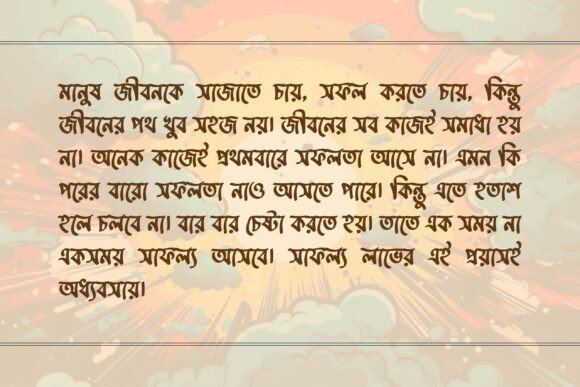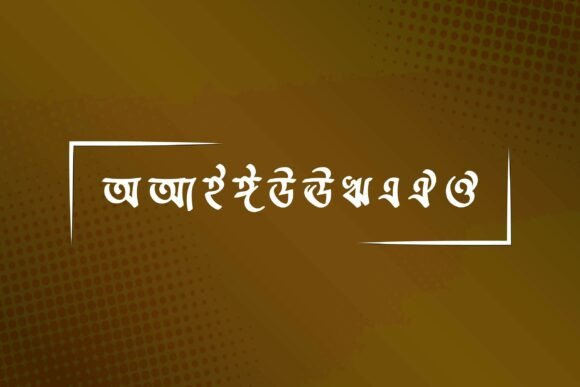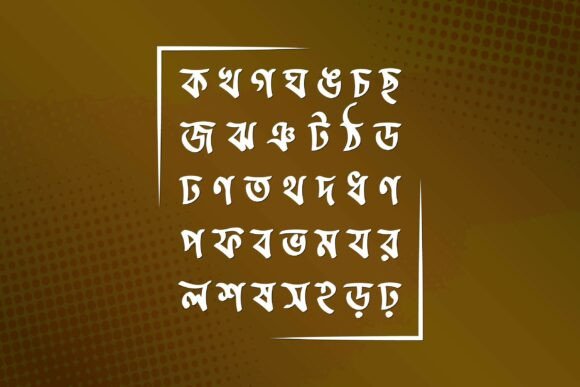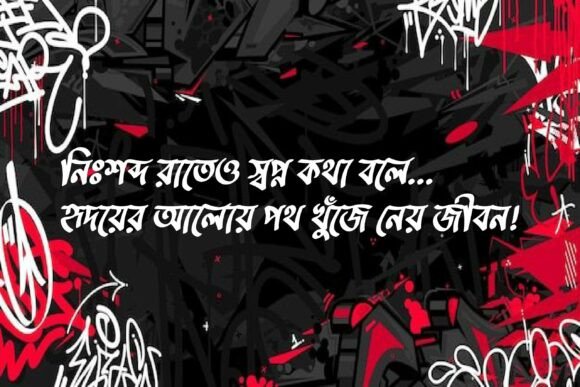
Introduction to Mayakoli Font Font
Fonts play a crucial role in design, and the Mayakoli Font font is a typeface that brings both character and versatility to any project. Whether you’re working on a branding project, a website, or a print design, the Mayakoli Font font offers a unique style that can elevate your work.
Introducing Mayakoli: a striking Stylish Graffiti Bangla Font crafted by Gothic with bold Display Quality.
Designed to make an impact, Mayakoli is perfect for Movie titles, Cartoon names, Game titles, and expressive T-shirt designs Featuring an extensive collection of 421 detailed glyphs and 196 characters, this font offers rich versatility for Bangla typography.
The Mayakoli Font font is more than just a typeface – it’s a design tool that helps you communicate your message with style and clarity. Its unique character set and versatile design make it suitable for a wide range of applications, from elegant invitations to bold headlines.
With its carefully crafted letterforms and balanced proportions, the Mayakoli Font font ensures readability and visual appeal across all mediums.
The Mayakoli Font font stands out with its unique design, exceptional readability, and versatility across various design applications.